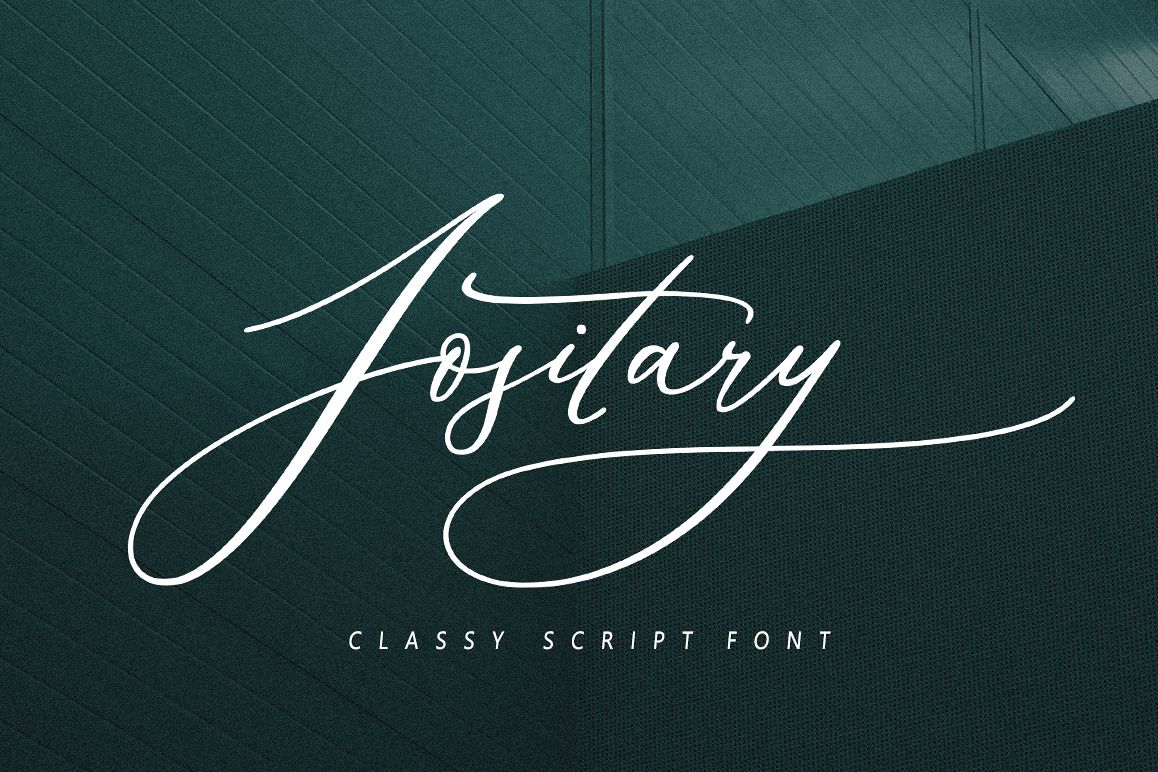
Jositary
Introducing Jositary is elegant and  a fashionable handwriting font, which looks like a signature, This font is intentionally made with unique alternates.
Jositary suitable perfectly for branding, posters, invitations, greeting cards, news, product packaging, blog posters, logos, business cards, all including personal charms etc.